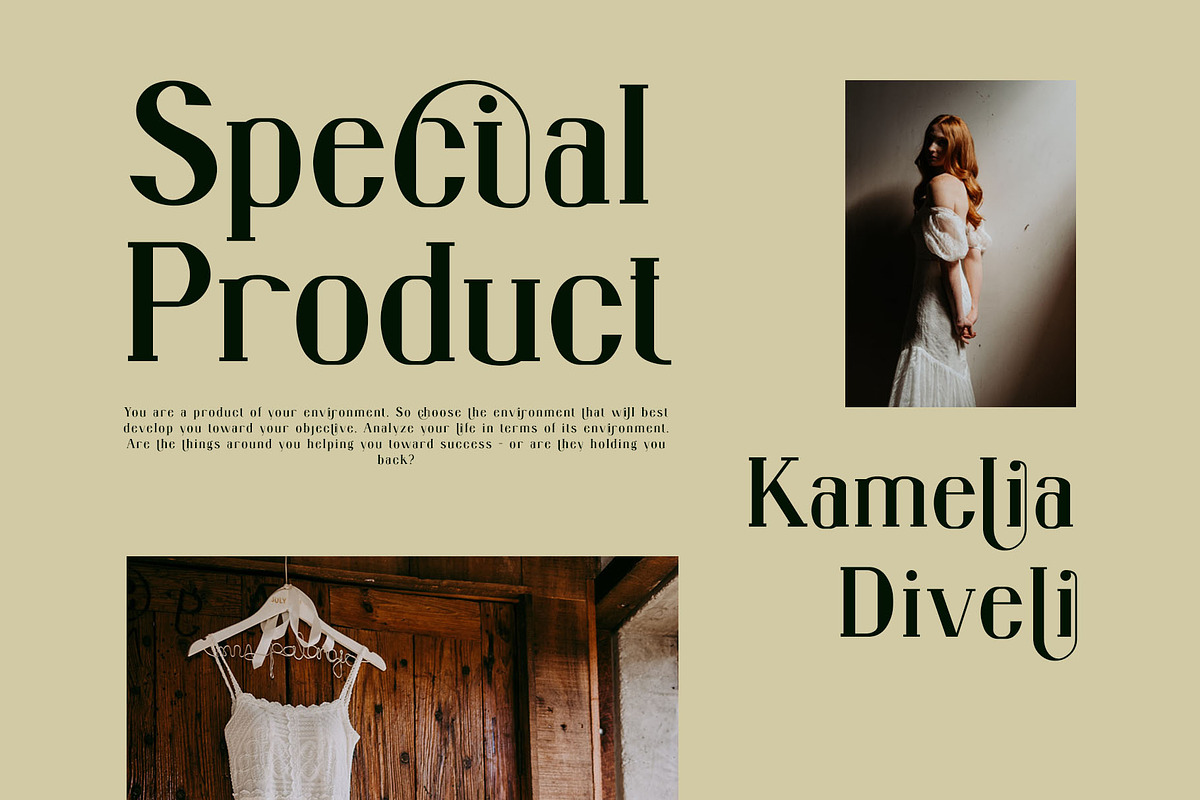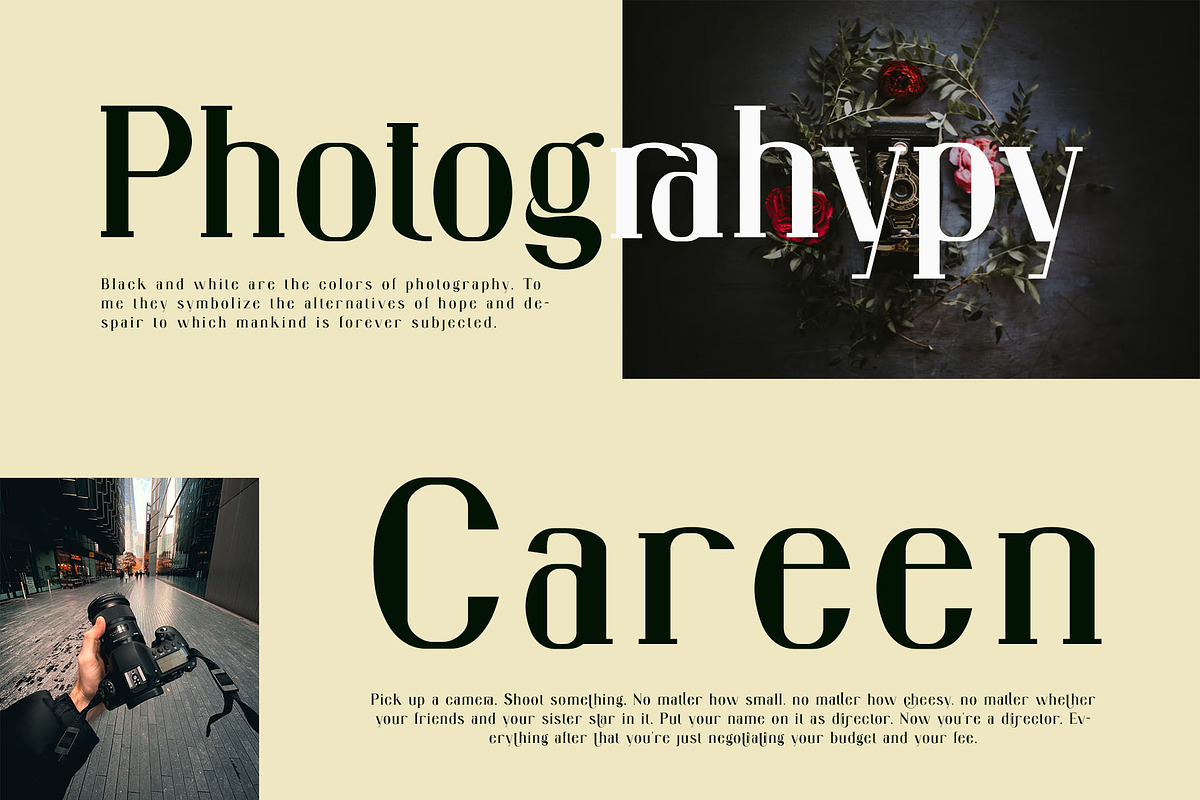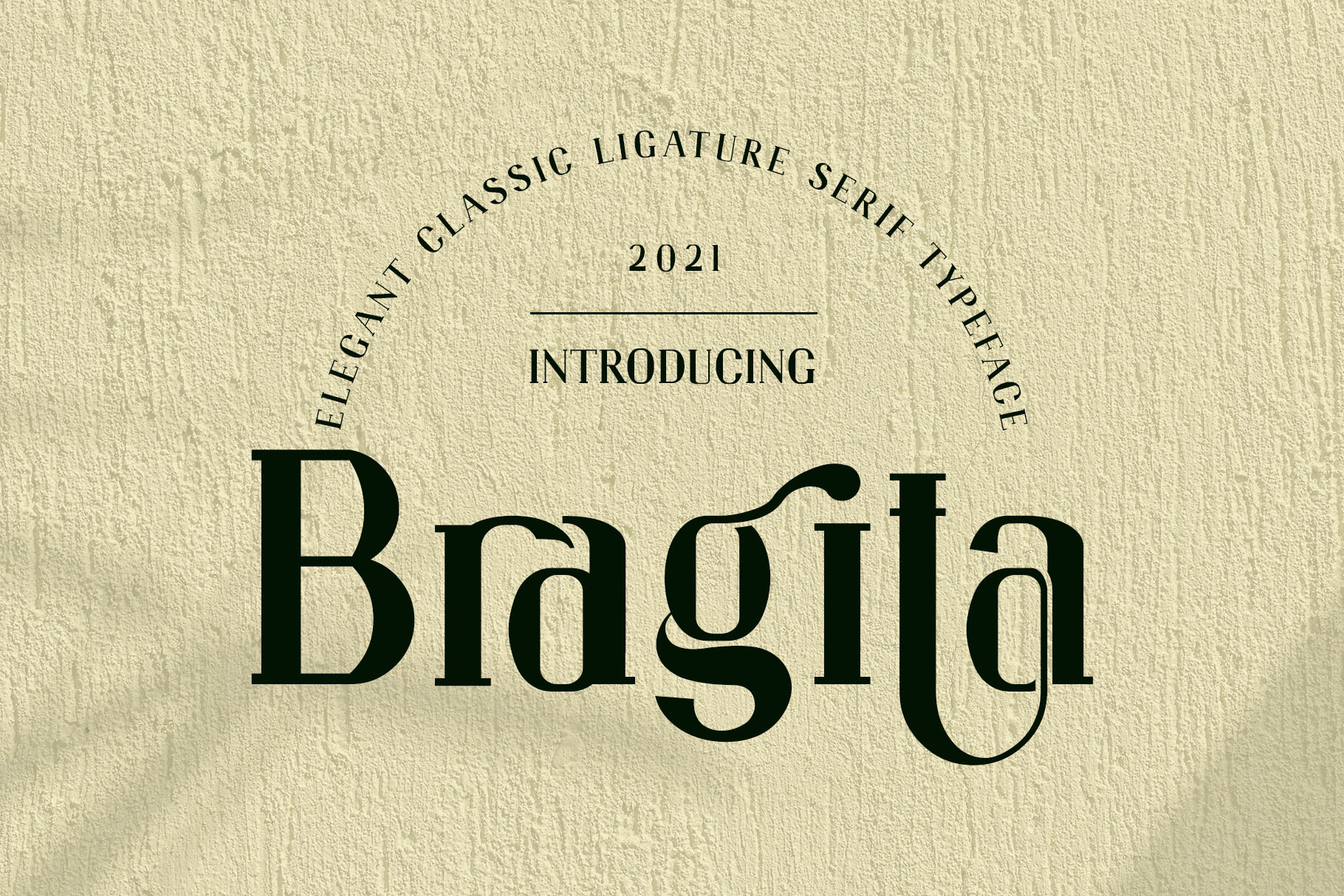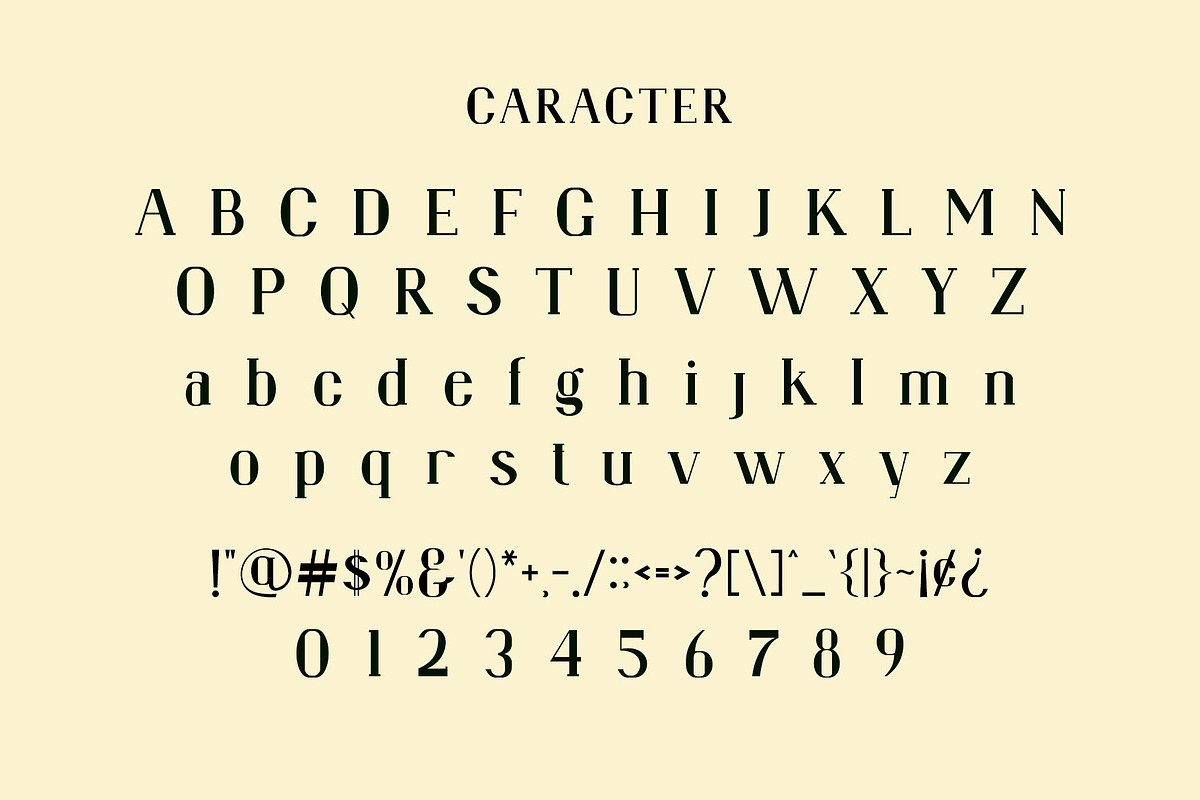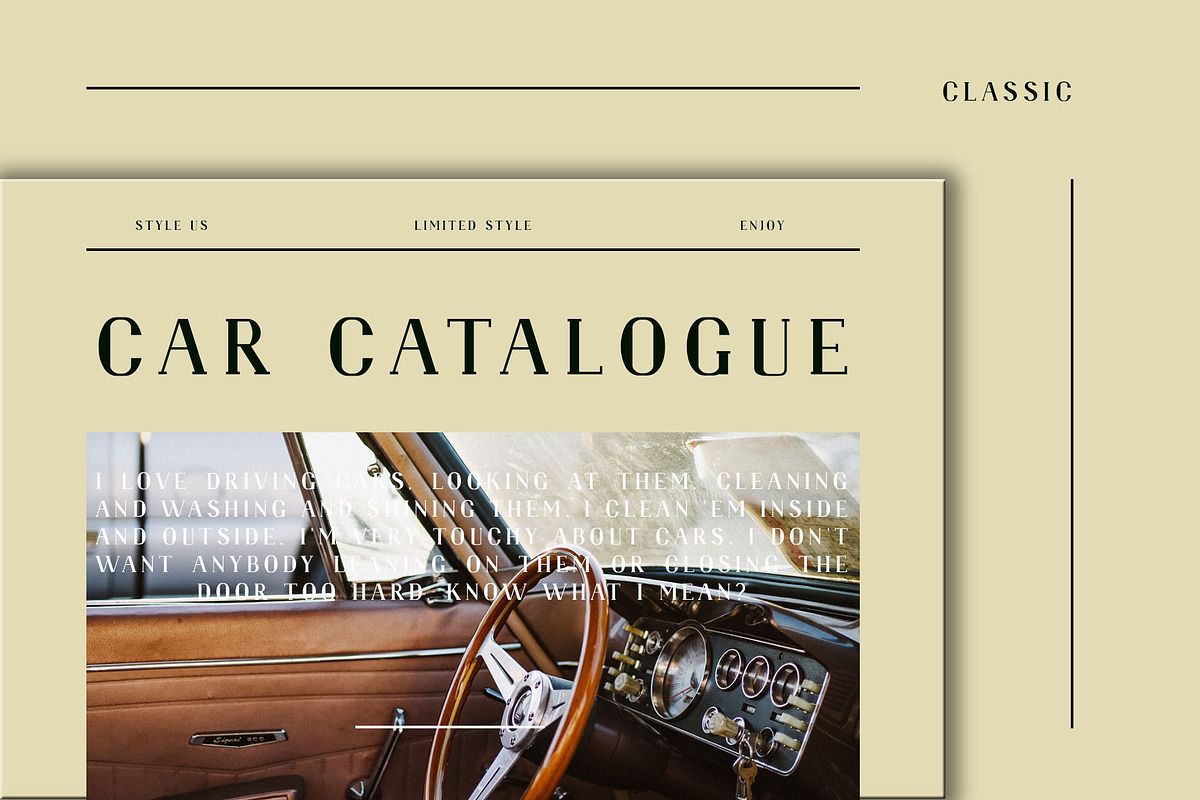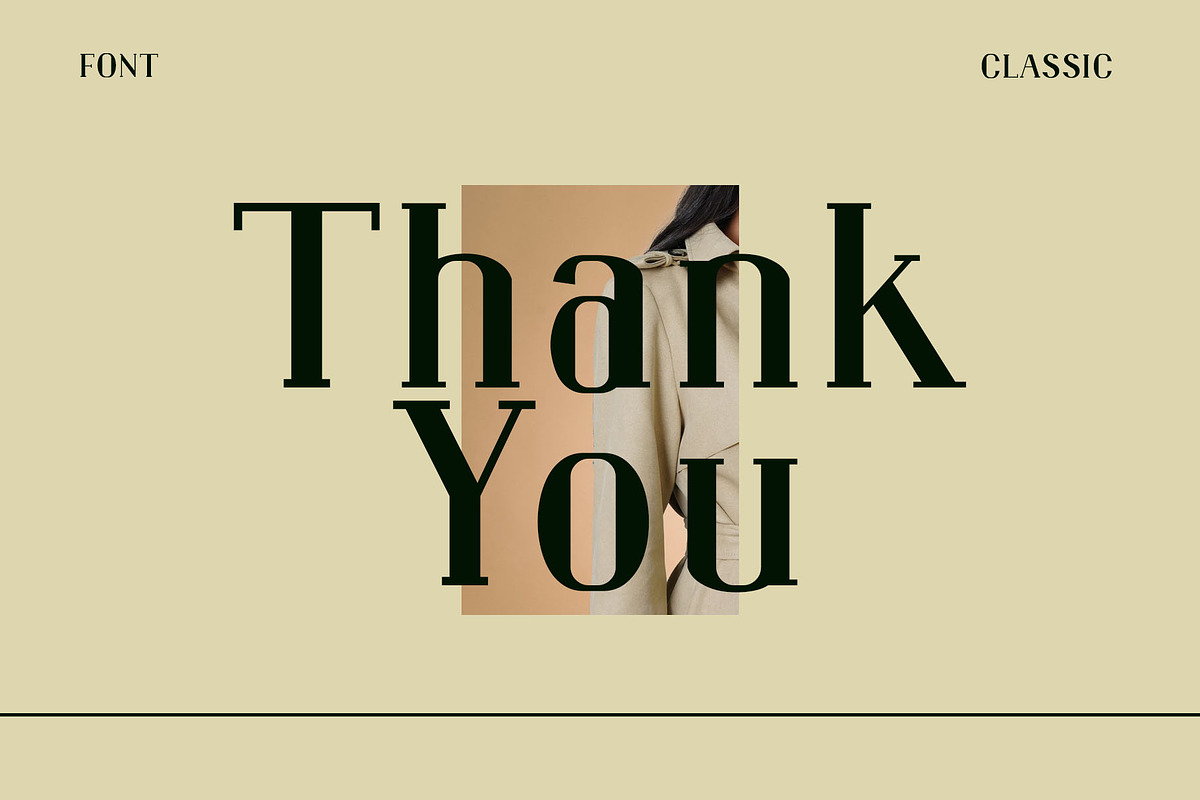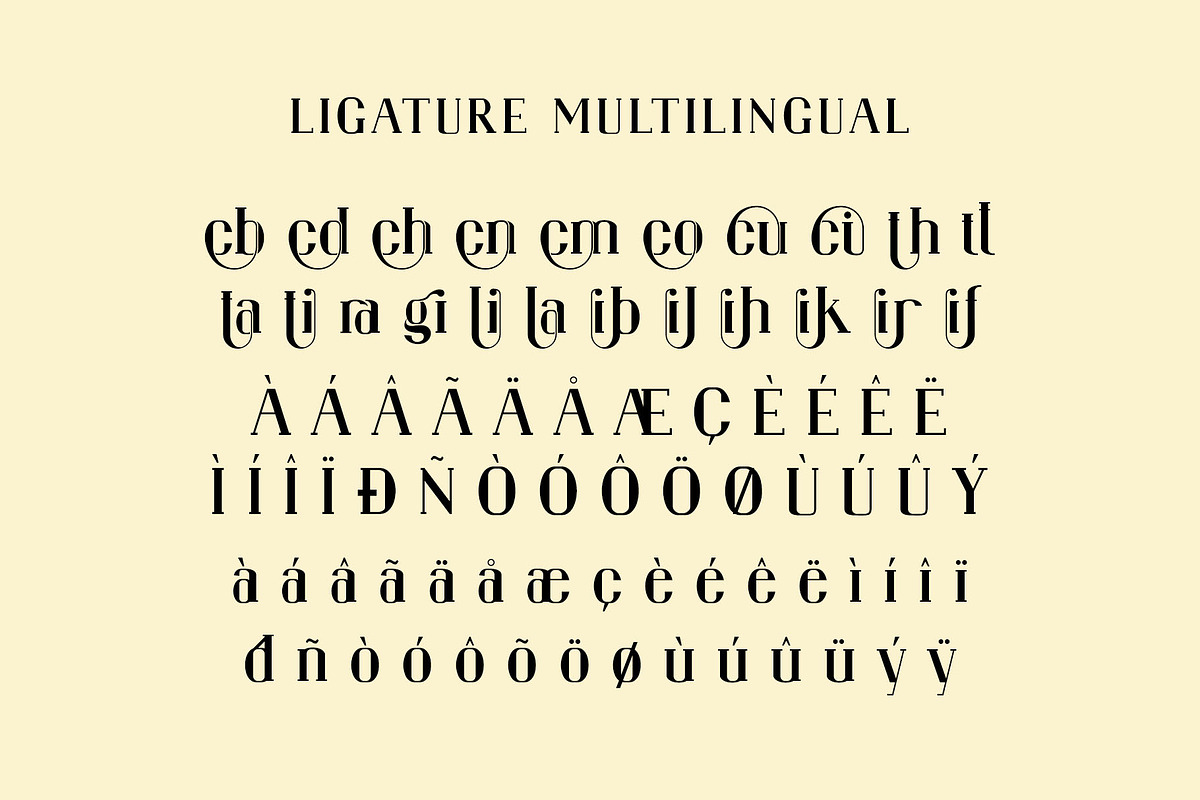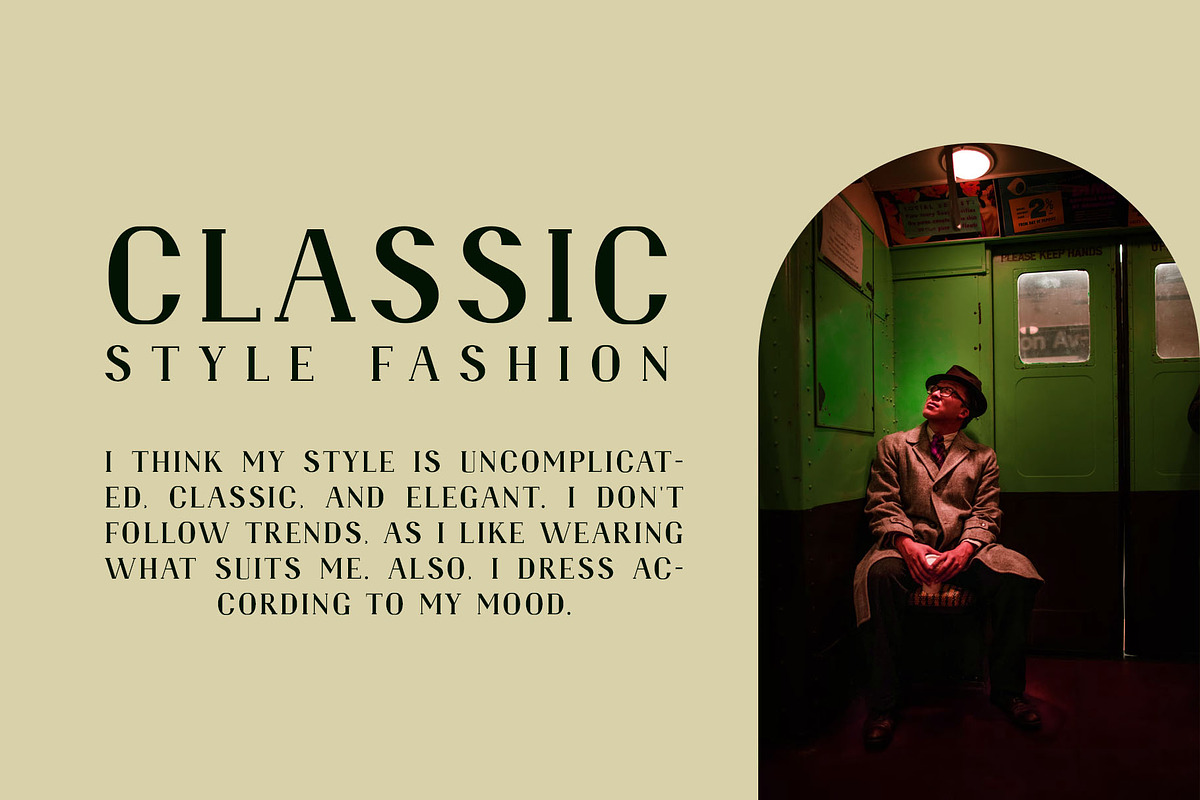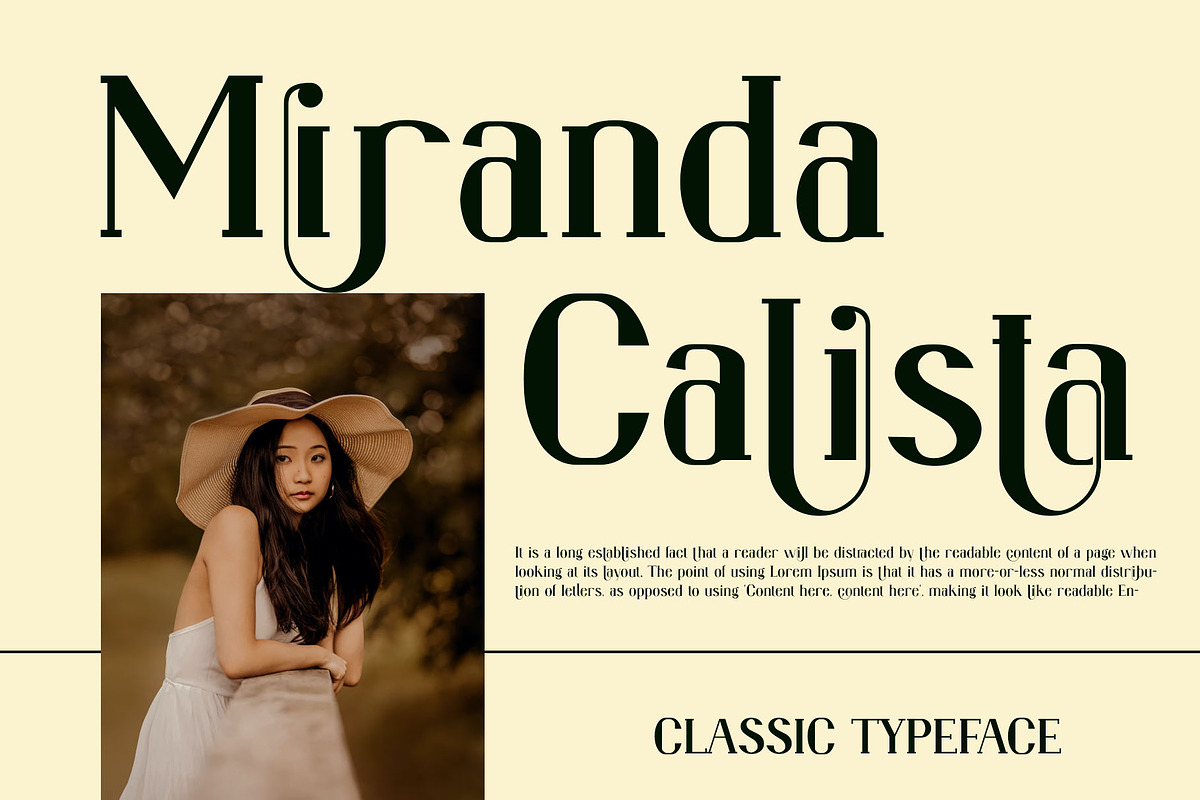
Bragita Ligature Serif Typeface
Bragita is a elegant and classy serif typeface – This font is both modern and nostalgic and works great for logos, magazine, social media. Already matched up and ready to be used together for your next design! For those of you who are needing a touch of elegant, stylish, classy, chic and modernity for your designs, this font was created for you!
Bragita was built with OpenType features and includes ligatures,alternates, numbers, punctuation, and it also supports other languages.